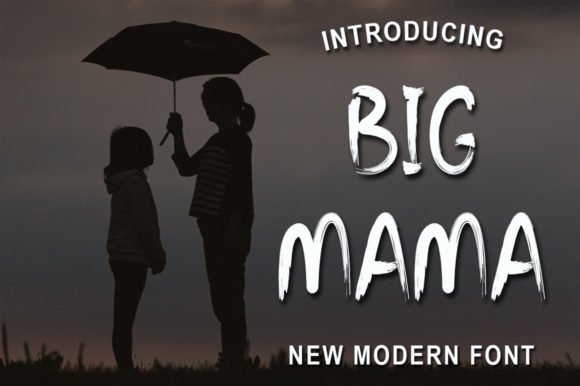
The Perfect Distraction: Unleashing the Power of Big Mama Font
Have you ever been working on a design project, pouring your heart and soul into it, only to feel like something is missing? That’s where Big Mama Font comes in – the perfect addition to take your creation from good to great. This fun and friendly brushed display font is designed to make a statement and stand out from the crowd.
With its simple yet striking visual effect, Big Mama Font is a valuable asset for designers looking to add a touch of personality to their work. Whether you’re designing a logo, creating a social media campaign, or developing a brand identity, this font is sure to make your project more appealing than ever before. Say hello to Big Mama Font, your new go-to companion for creating eye-catching designs that leave a lasting impression.
- Unique Characteristics: Big Mama Font features a bold and playful design, with a mix of rounded and angular elements, making it perfect for use in titles, headings, and other display text.
Designer Review: Big Mama Font
Big Mama Font is a fun and playful font that’s sure to bring a smile to your face. Here are some things that I think work well: ✨
- Unique and quirky design: Big Mama Font has a distinct personality that sets it apart from other fonts.
- Perfect for creative projects: The font’s playful nature makes it ideal for projects like children’s books, advertising, and social media graphics.
- Good legibility: Despite its bold and whimsical design, Big Mama Font is still easy to read, even at smaller font sizes.
- May not be suitable for formal projects: Big Mama Font’s playful design may not be suitable for more formal projects like resumes, business reports, or academic papers.
- Limited character set: Big Mama Font may not have a complete character set, which could limit its use in certain languages or for projects that require a wide range of characters.
Overall, I think Big Mama Font is a great addition to any designer’s toolkit. While it may not be suitable for every project, its unique design and good legibility make it a great choice for creative and playful projects.
Tips for Getting the Most Out of Big Mama Font
Big Mama Font is a decorative font, so use it sparingly to add visual interest to your designs.
Pair Big Mama Font with a clean, sans-serif font for maximum readability.
Big Mama Font is perfect for:
Creating eye-catching headlines and titles.
Adding a touch of whimsy to your designs.
Creating a vintage or retro-inspired aesthetic.